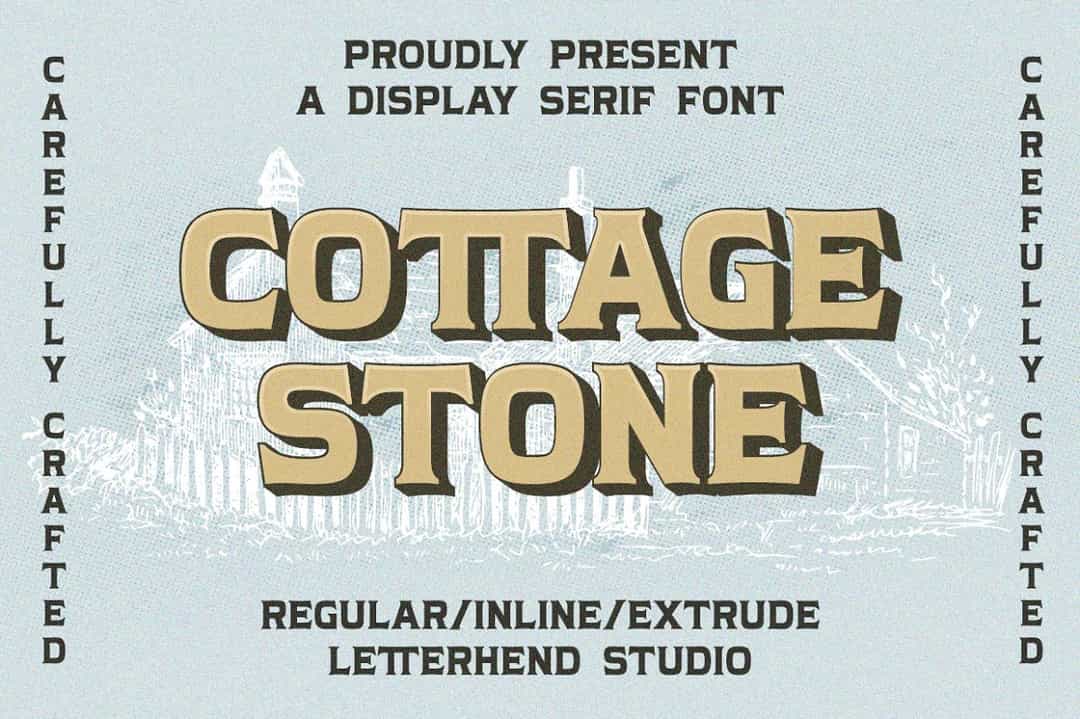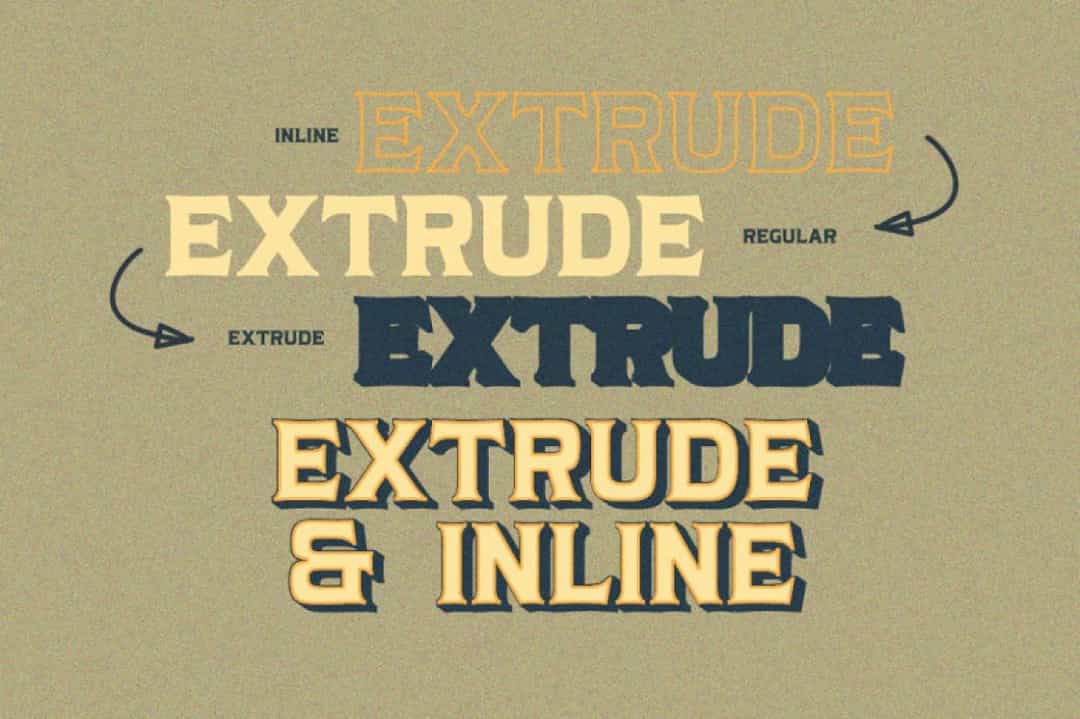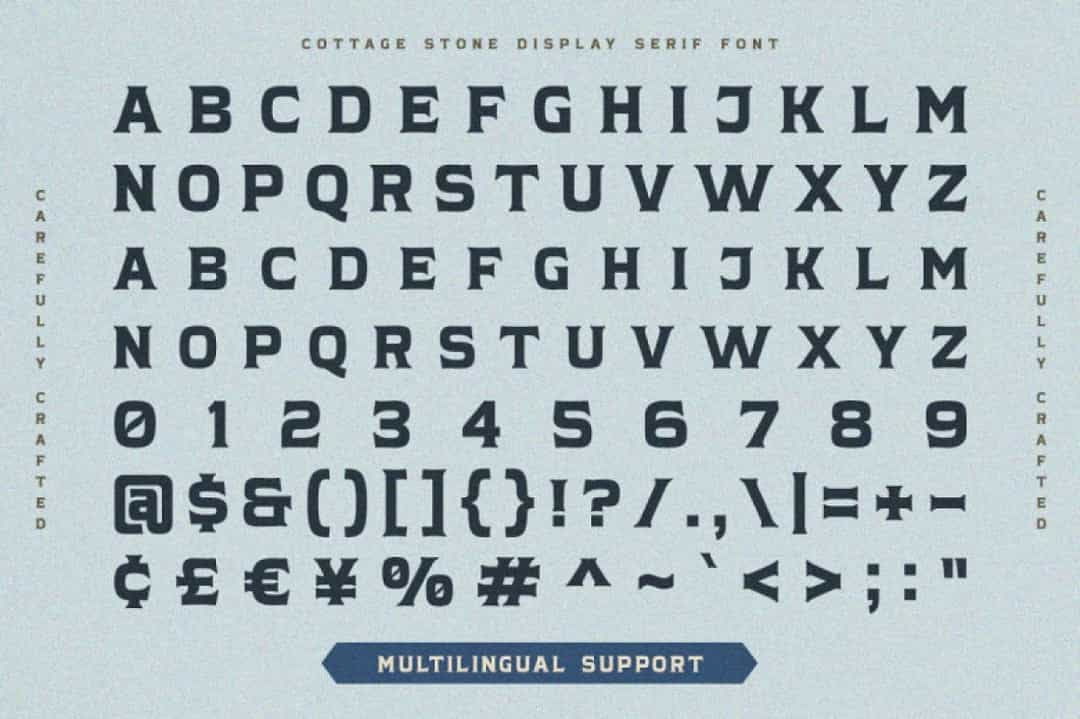
Cottage Stone font is an elegant font featuring timeless vintage designs, perfectly tailored for use across formal uses such as invitations and labels or magazine covers, logos wedding and greeting card packaging, fashion makeup application packaging or fashion makeup labels – not forgetting all kinds of advertising purposes as well!